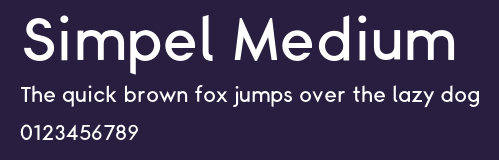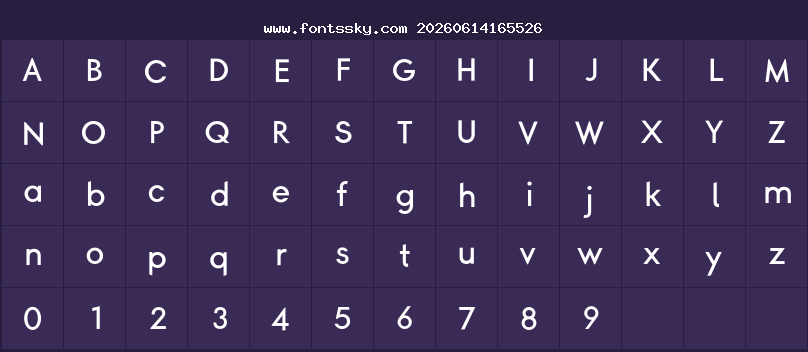
• Font Name: Simpel Medium
• Full Font Name: Simpel Medium
• Designer: Janko Jovanovic
About Simpel Medium.otf
Simpel Medium.otf is a modern, elegant sans-serif font designed for ultimate readability and visual harmony. Perfect for branding, headlines, web design, and print materials.